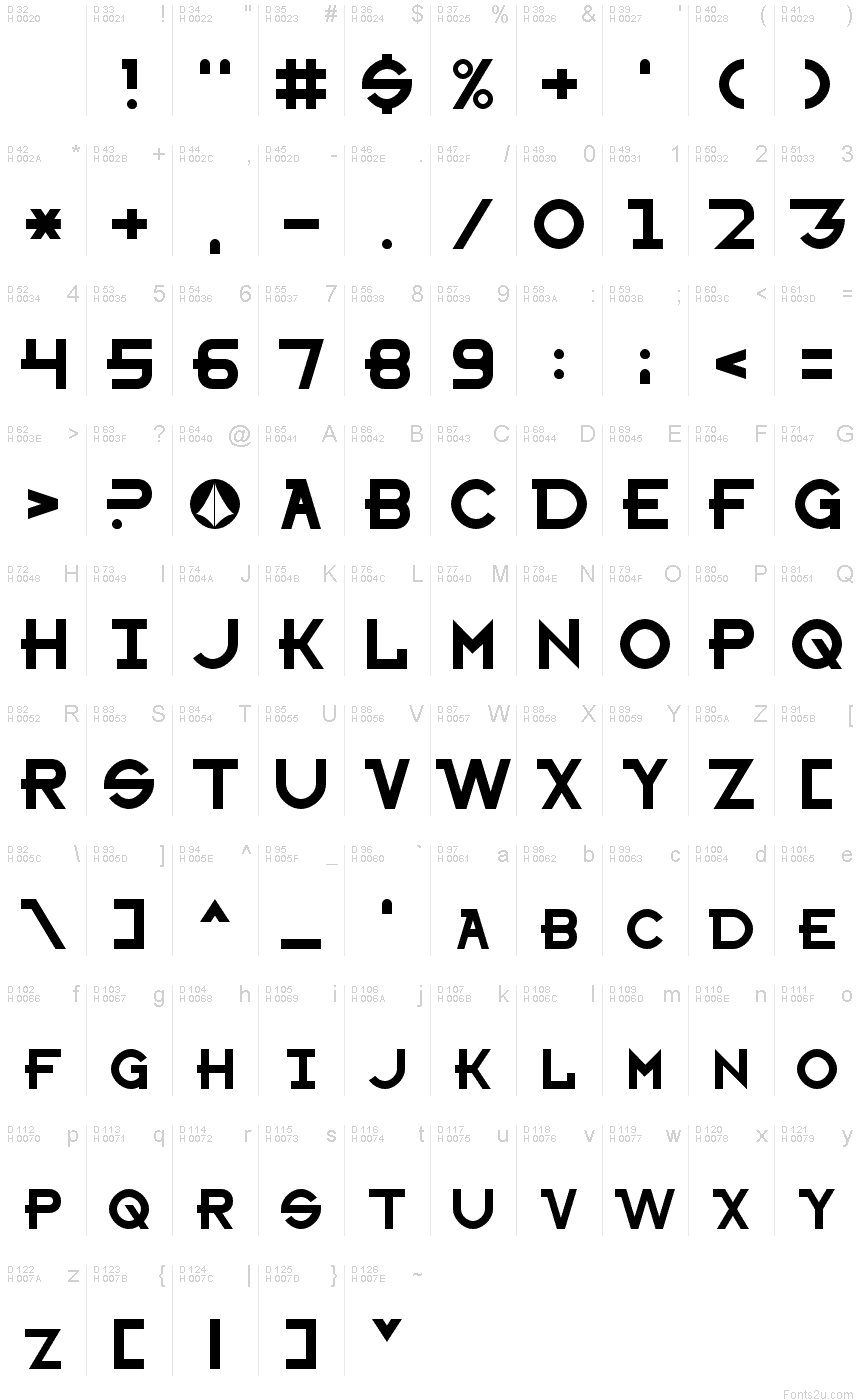
Sharon Apple Normal
Sharon Apple, a free techno display font by Neale Davidson, has the blunt, geometric snap of late-90s futurism. The caps are built from big circular forms and heavy straight cuts, with an open, sliced G and a sharply simplified A that make the alphabet feel machine-made but not sterile.
It works well for game logos, music packaging, poster headlines, title cards, and compact branding where a few letters need a strong synthetic accent. As a free font, Sharon Apple makes most sense in short, graphic settings like cover lines or monograms, where those rounded counters and abrupt joins give even simple words a distinctly electronic tone.